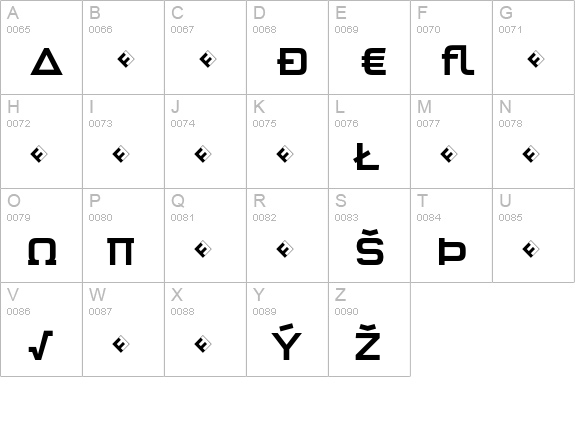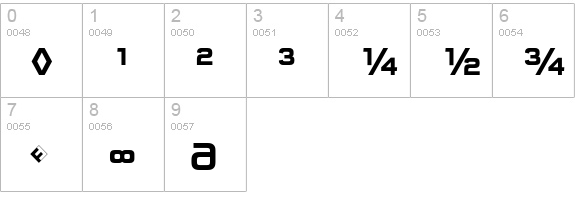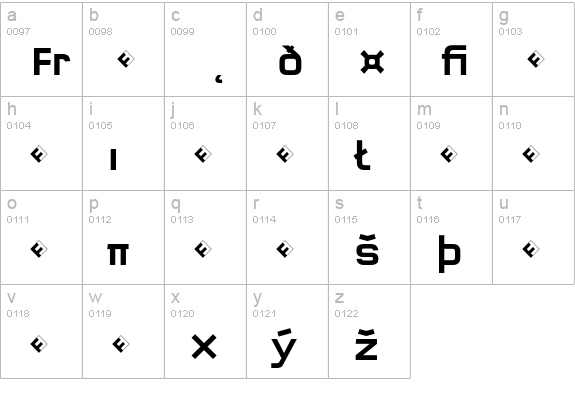
QTypeSquare-MediumExpert Font Details
Introducing QTypeSquare-MediumExpert, the font that effortlessly blends sophistication and versatility. With its clean lines and elegant curves, this font exudes a timeless charm that is perfect for any design project. Whether you're creating a professional website, designing a sleek logo, or crafting eye-catching print materials, QTypeSquare-MediumExpert will elevate your work to new heights. This font is the epitome of modernity, with a medium weight that strikes the perfect balance between boldness and subtlety. Its expertly crafted letterforms are meticulously designed to ensure legibility and readability, making it an ideal choice for both display and body text. But the best part? QTypeSquare-MediumExpert is completely free! Yes, you read that right. This premium font is freely available to download at FontsMarket.com. Now you can create stunning designs without breaking the bank. The versatility of QTypeSquare-MediumExpert knows no bounds. Its timeless appeal makes it suitable for a wide range of design projects, from branding and marketing materials to editorial layouts and beyond. Its clean and modern aesthetic will effortlessly complement any style, allowing your creativity to shine. So why wait? Download QTypeSquare-MediumExpert today and unlock a world of design possibilities. Whether you're a seasoned professional or just starting out, this font will become your go-to choice for all your design needs. Don't miss out on this incredible opportunity to enhance your work with a font that is both stylish and adaptable. Get QTypeSquare-MediumExpert now, exclusively at FontsMarket.com.